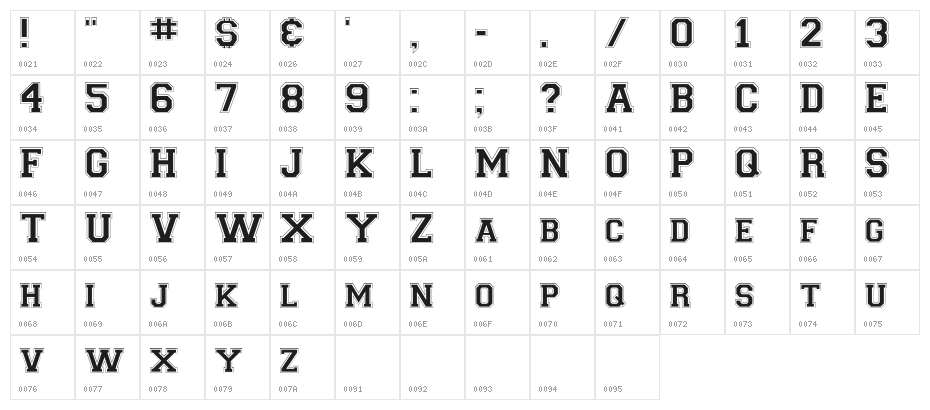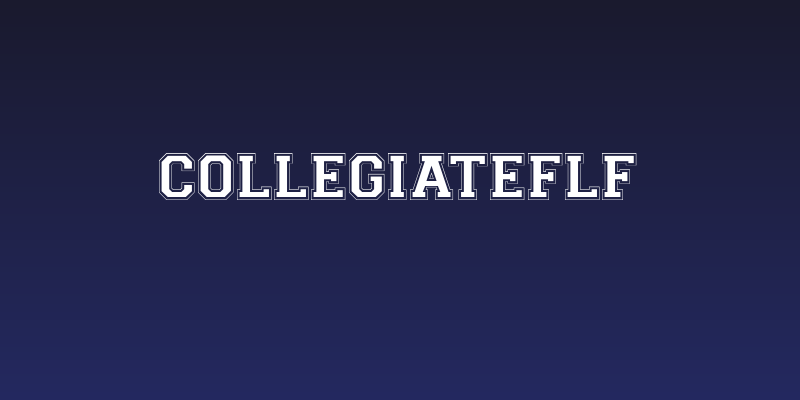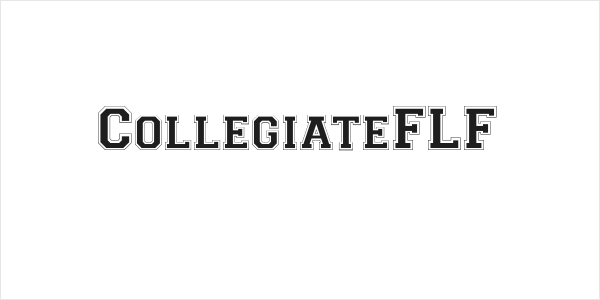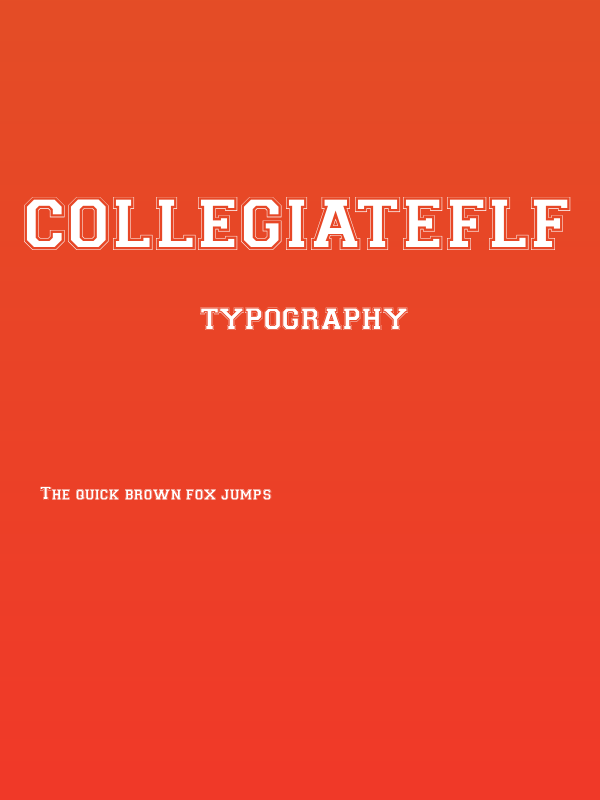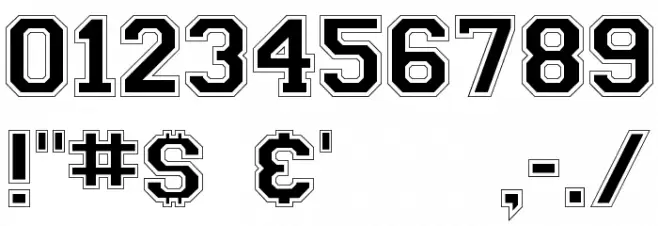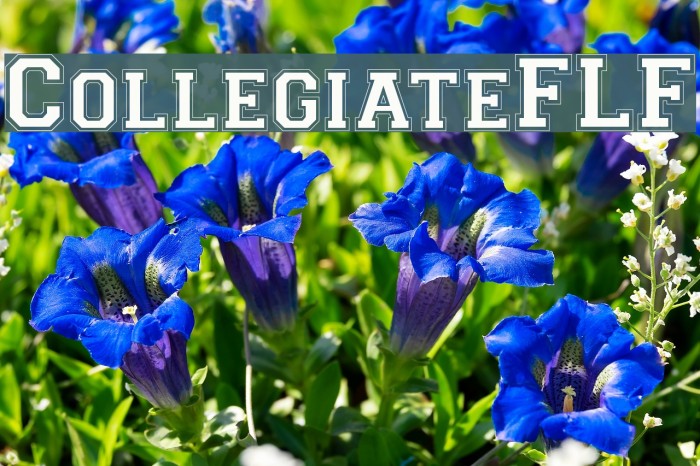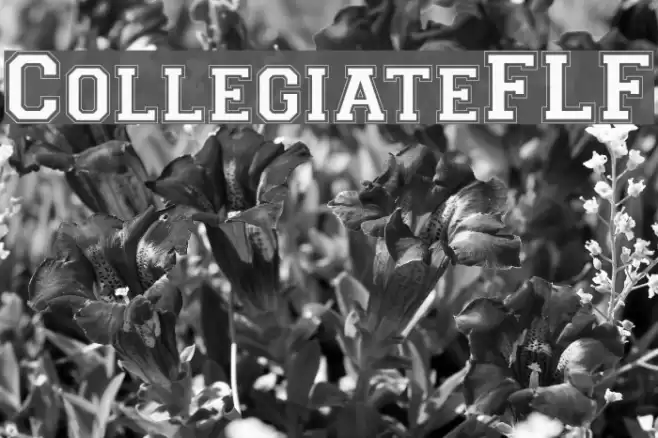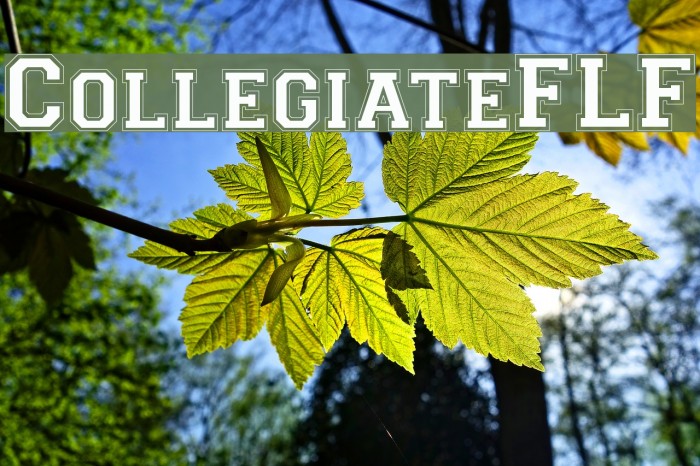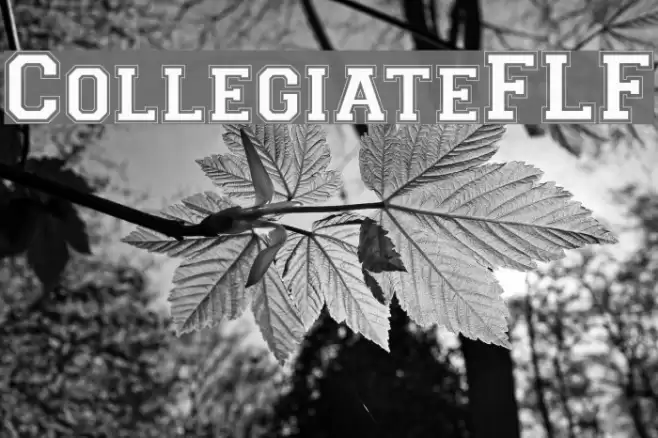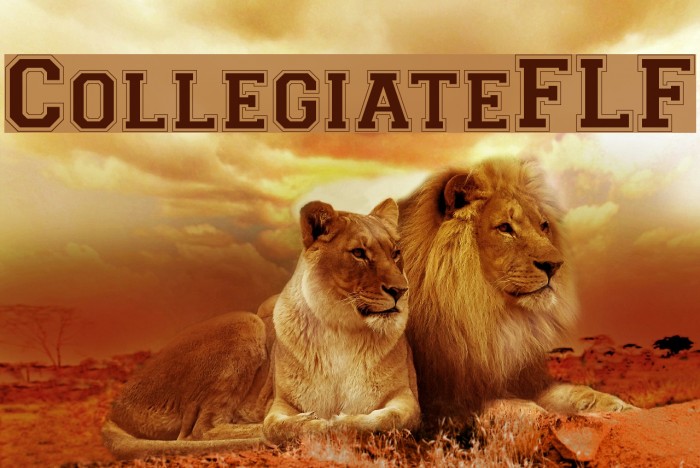
CollegiateFLF Font
CollegiateFLF Description
This font features a bold, collegiate style with strong, block-like characters that are outlined for added emphasis. The uppercase letters are prominent and convey a sense of strength and tradition, reminiscent of classic varsity or sports team lettering. The numbers and special characters maintain this robust style, ensuring consistency across all glyphs. The font's design is ideal for creating a bold statement, with its thick lines and outlined edges providing a sense of depth and dimension. The overall appearance is both authoritative and approachable, making it suitable for a variety of applications where a strong visual impact is desired.
| Overall Style | Classic |
| Proposed Projects | Ideal for sports team branding, school merchandise, event posters, and banners. |